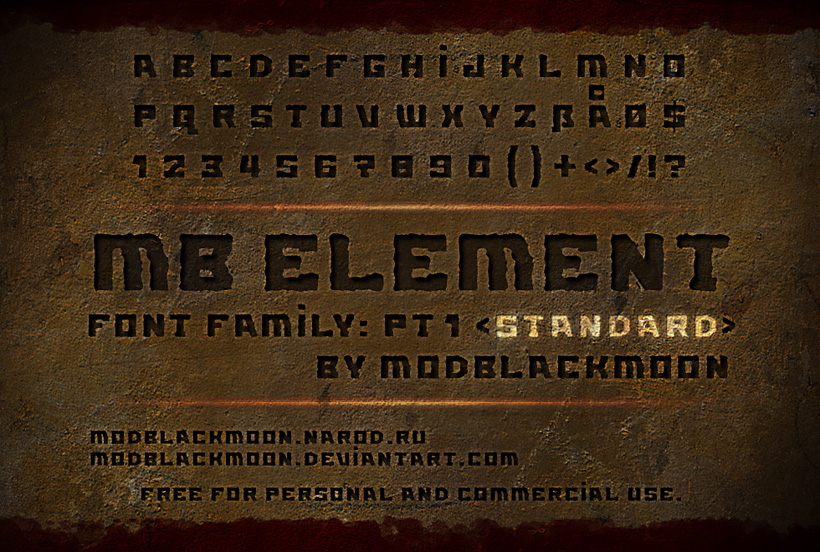
Font name: | MB Element |
Author: | Irina ModBlackmoon |
Note by Irina ModBlackmoon | |
Simple grunge bold font with torn edges. First part of MB-Element set. |